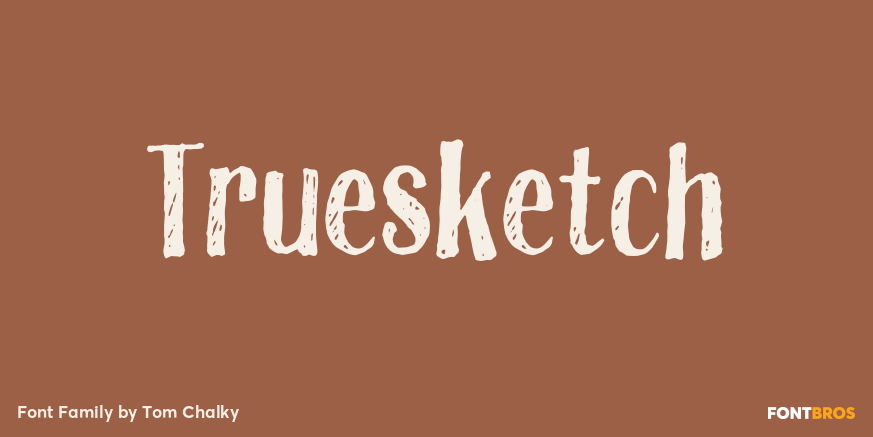
Truesketch
About Truesketch
TrueSketch is a fun, practical and versatile font that can be used in various digital projects. It is a regular font (+ Italic!) with stylistic alternatives for every letter to help you emphasize the authentic handwritten style. Every glyph was hand drawn,…